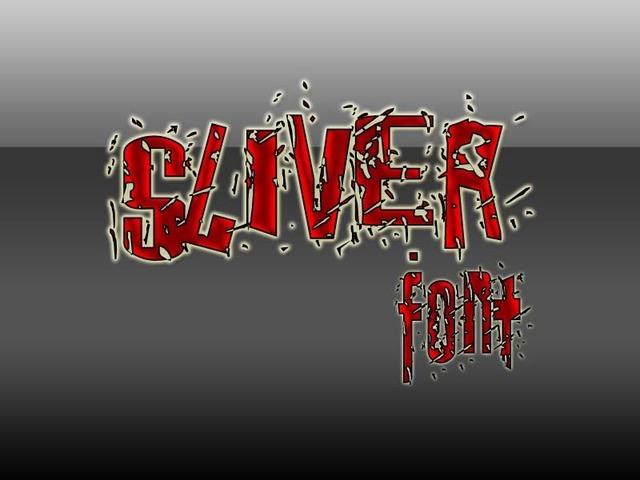
Sliver is a new font designed for every use...
Everybody loves a good font, right?
Especially a good grunge font. Yeah, we can't get enough of those.
Help me complete this font. The upper and lower cases are finished, as you can see in the video. I am now working on the other characters that are present on the keyboard.
If successful, this font will be made available to the public later in the year.